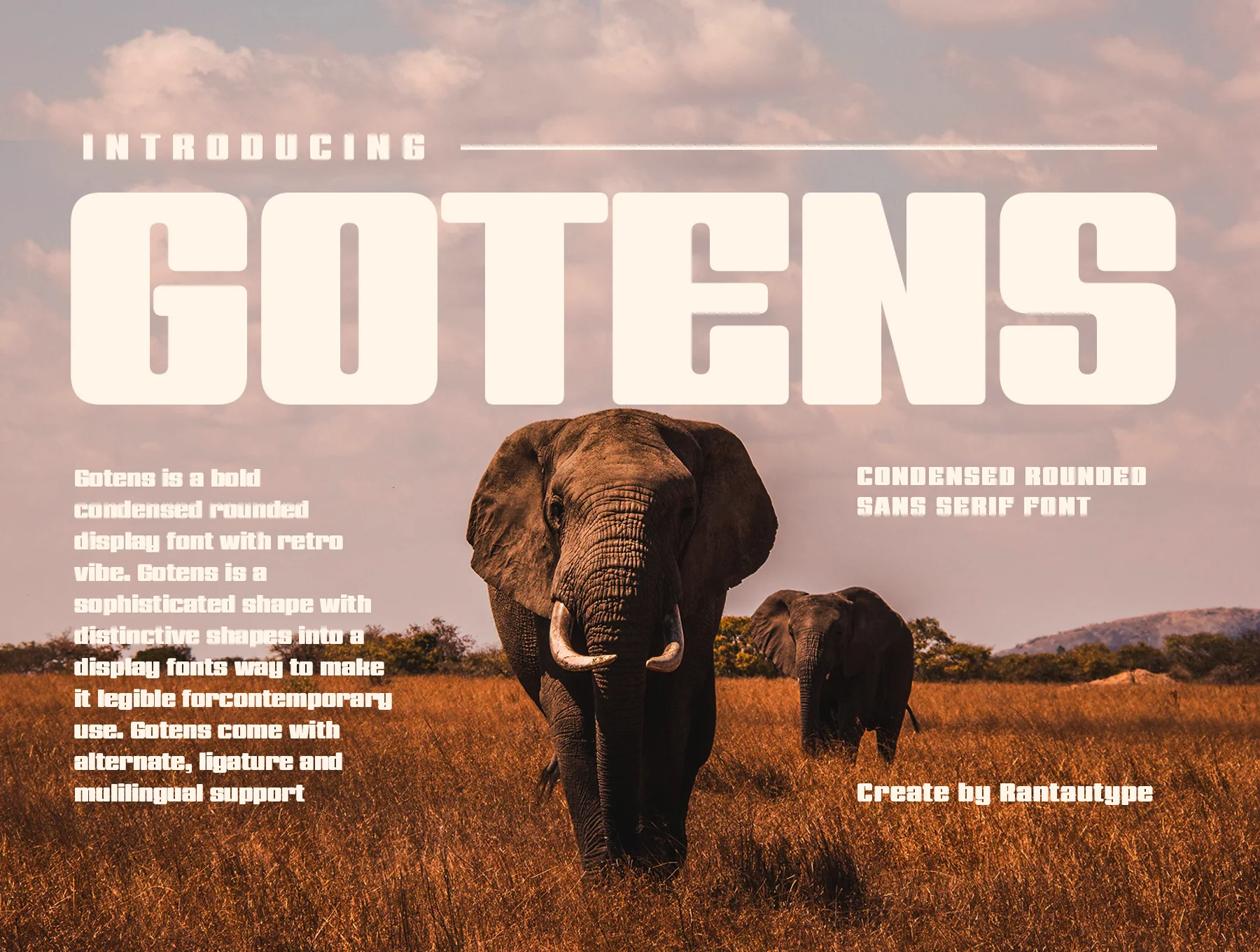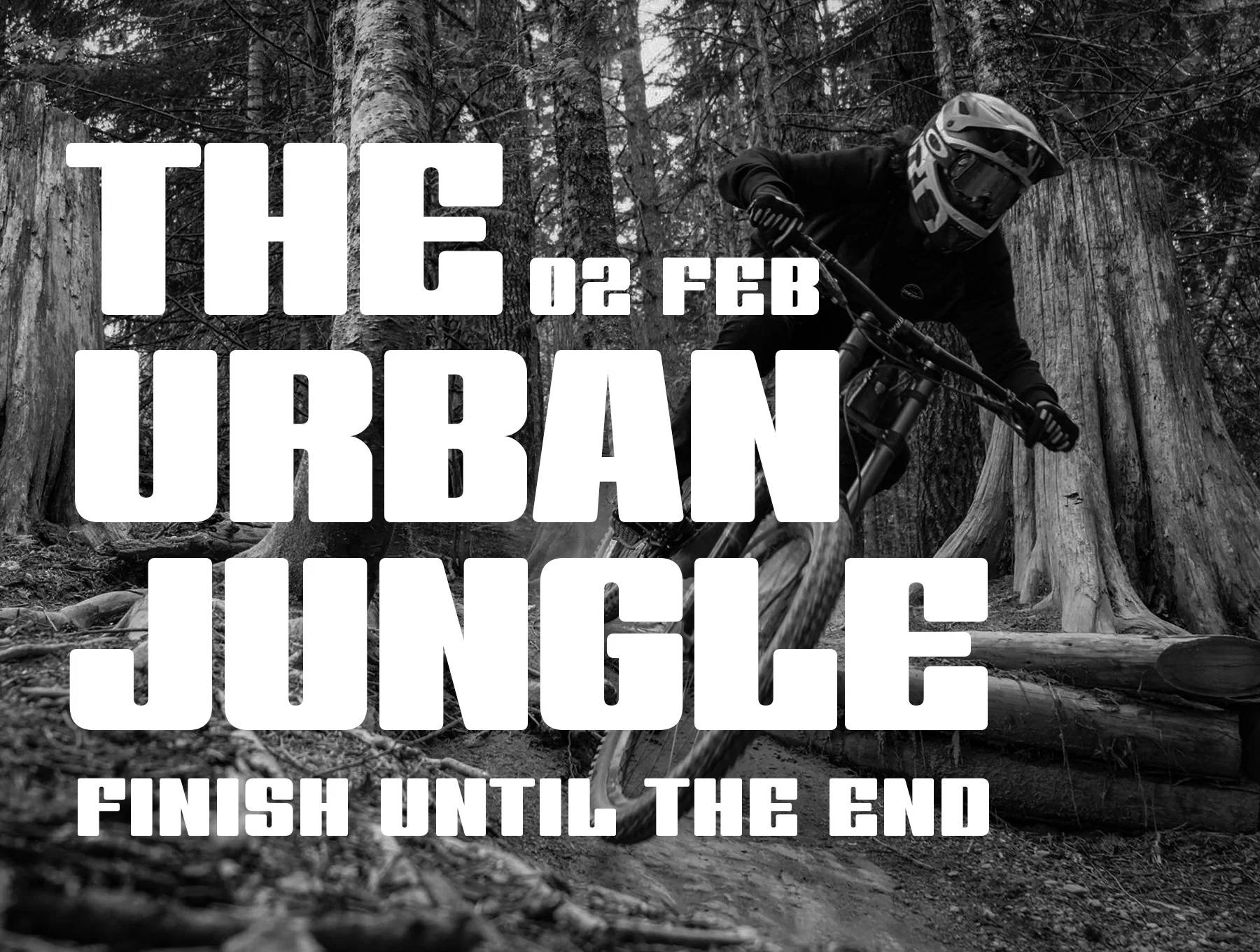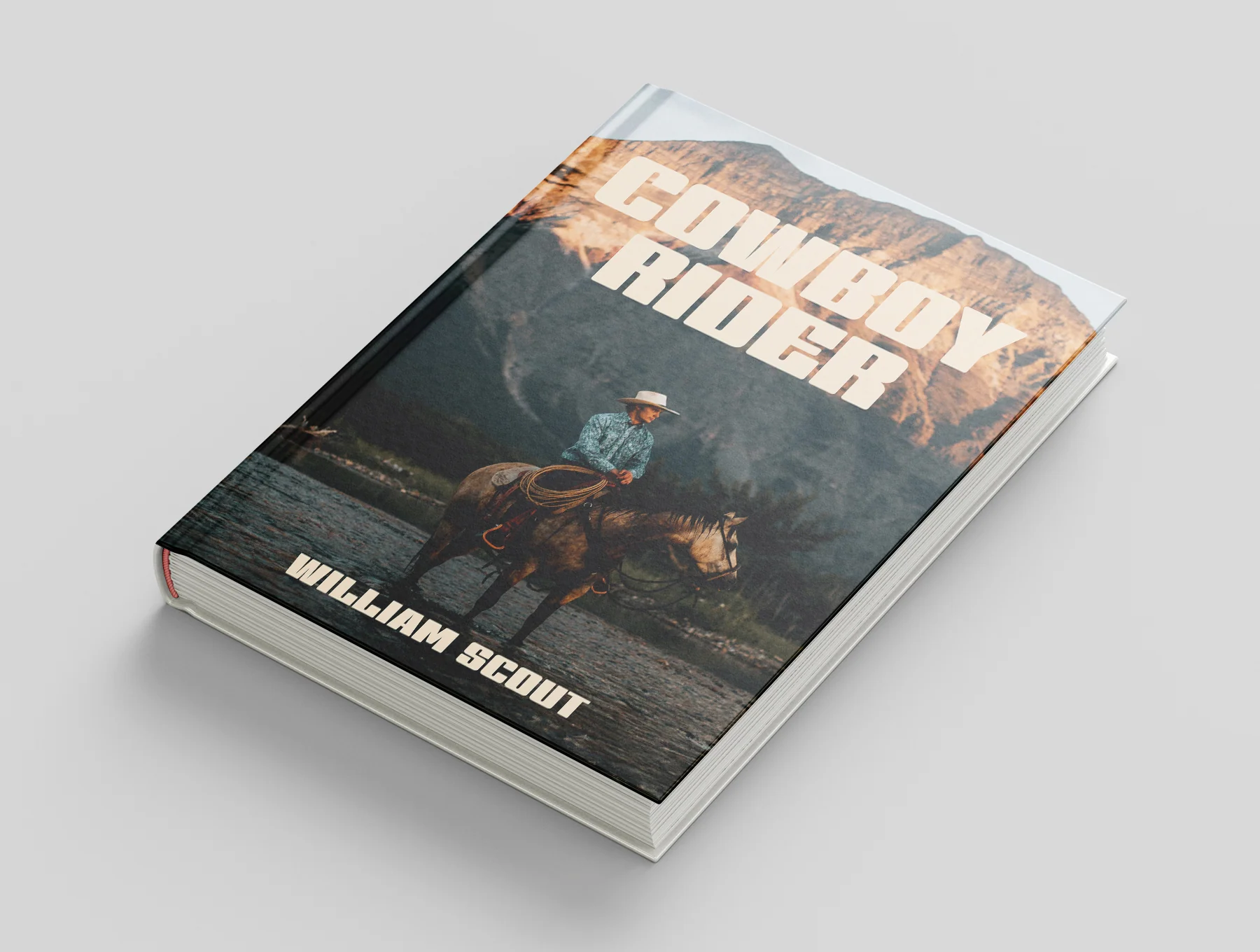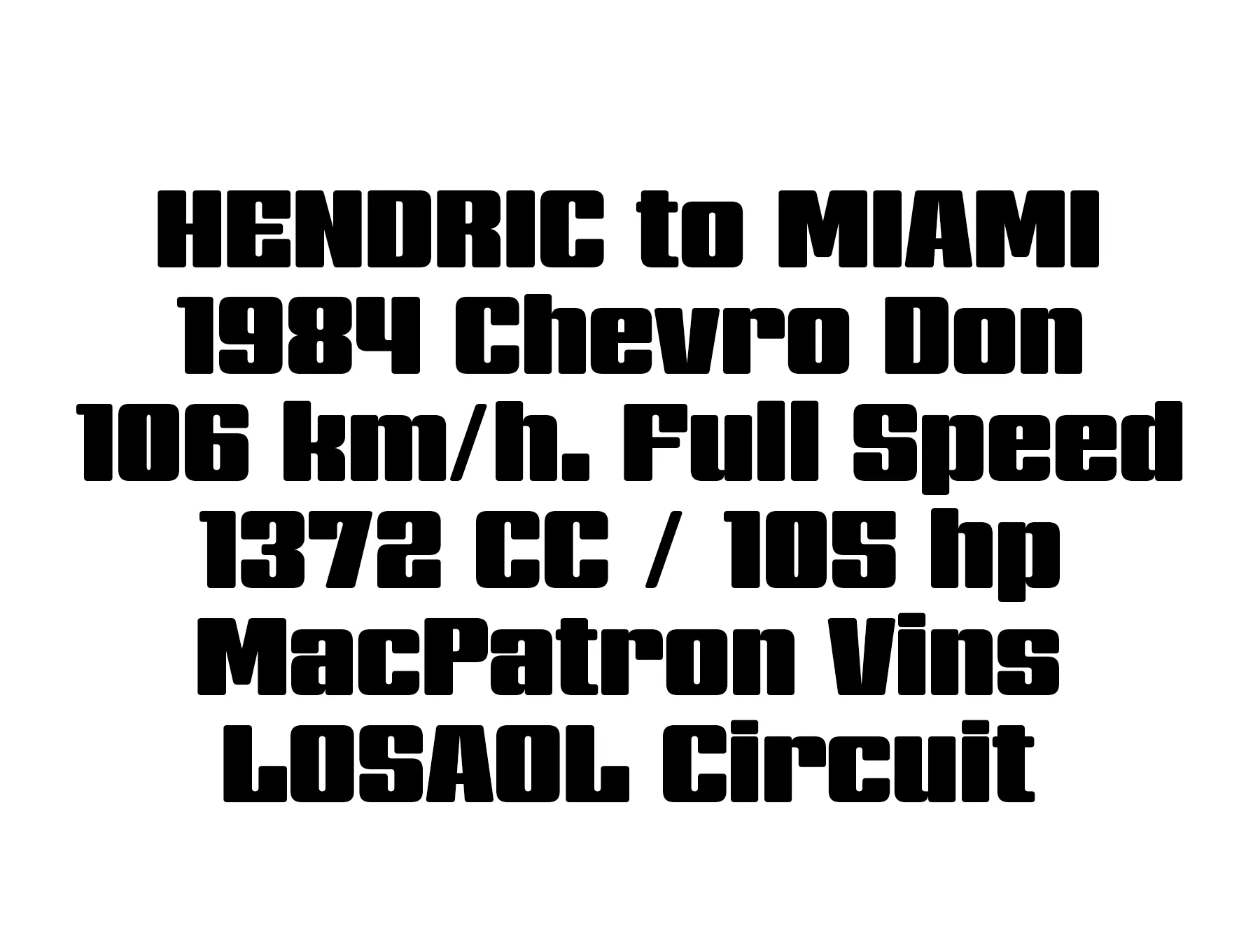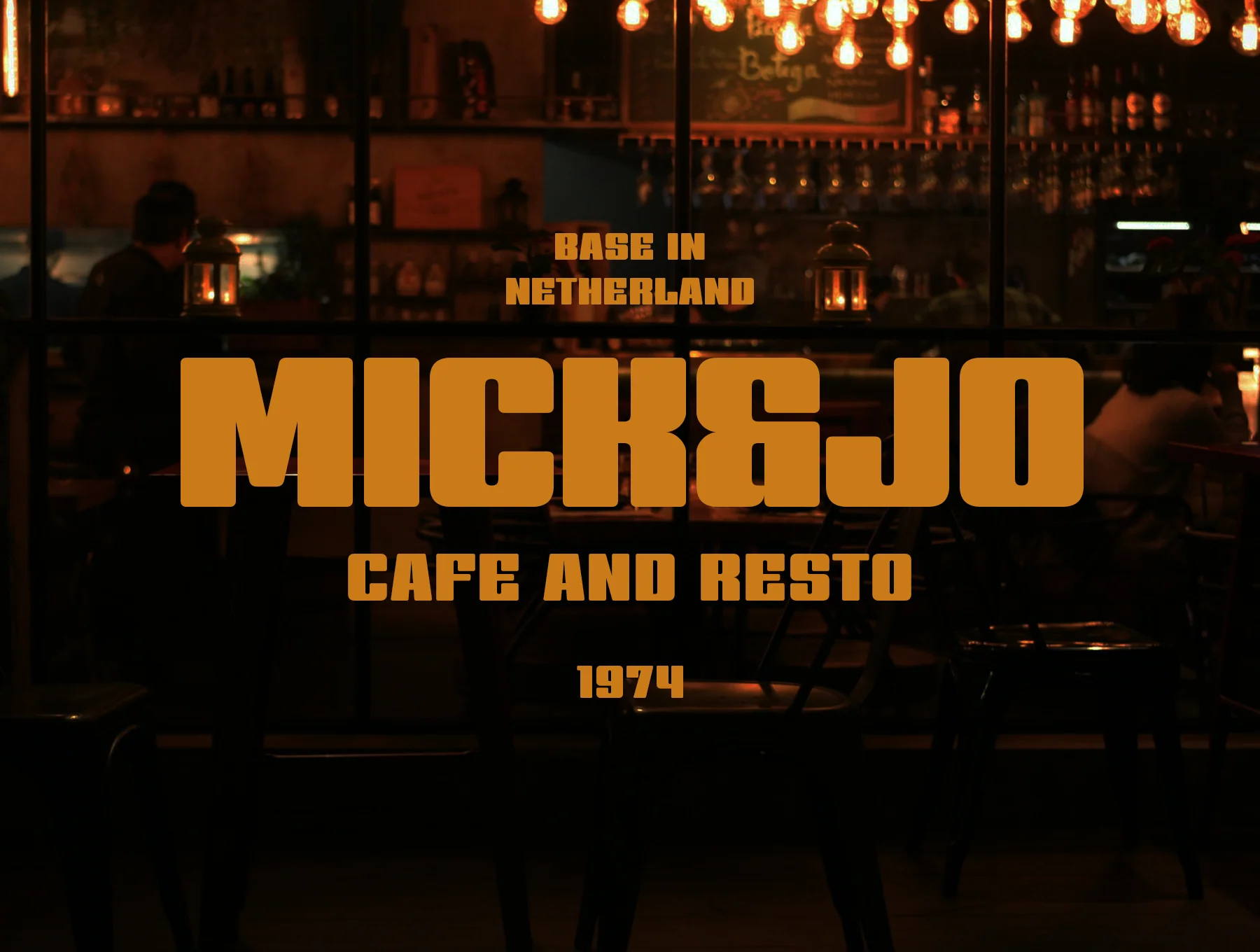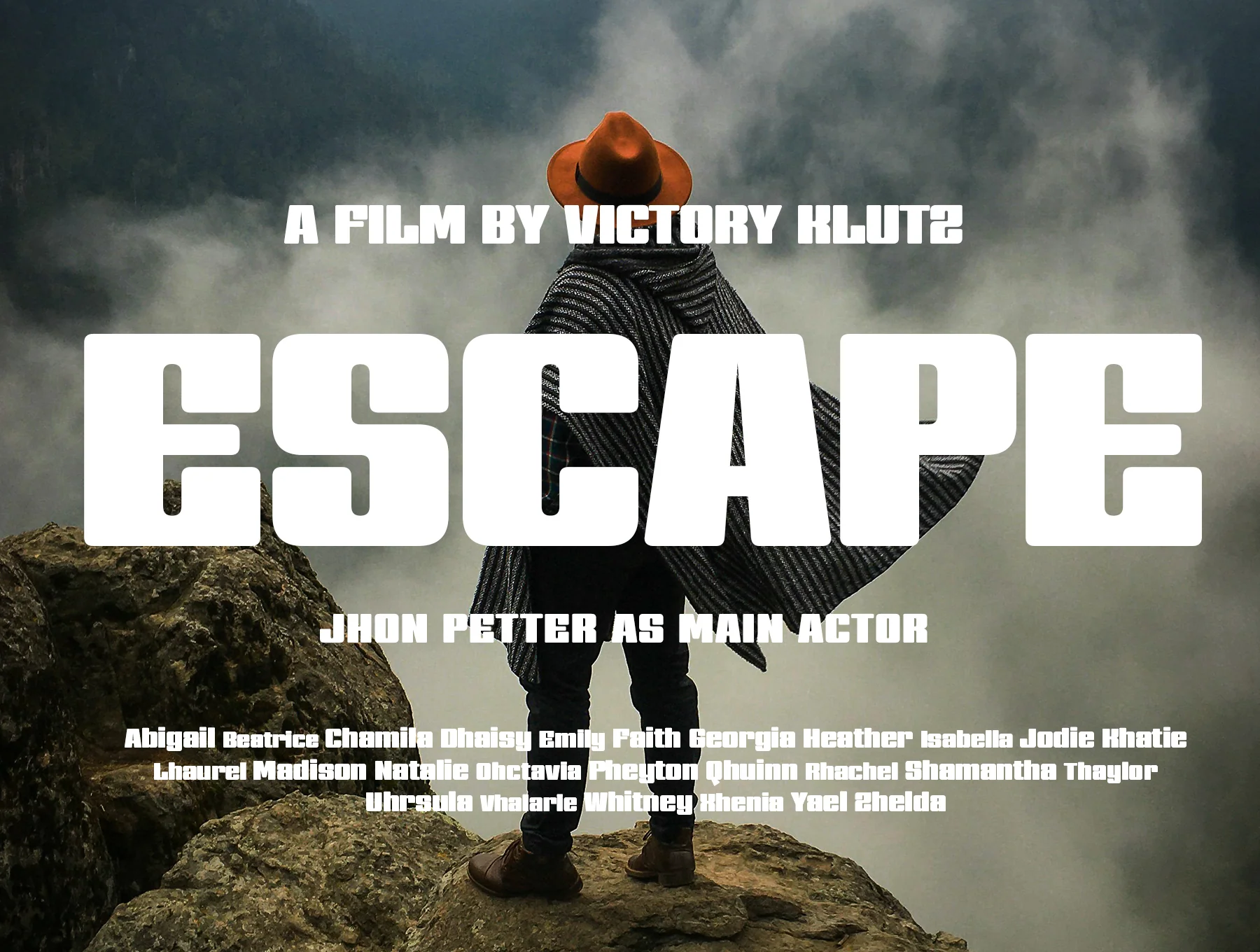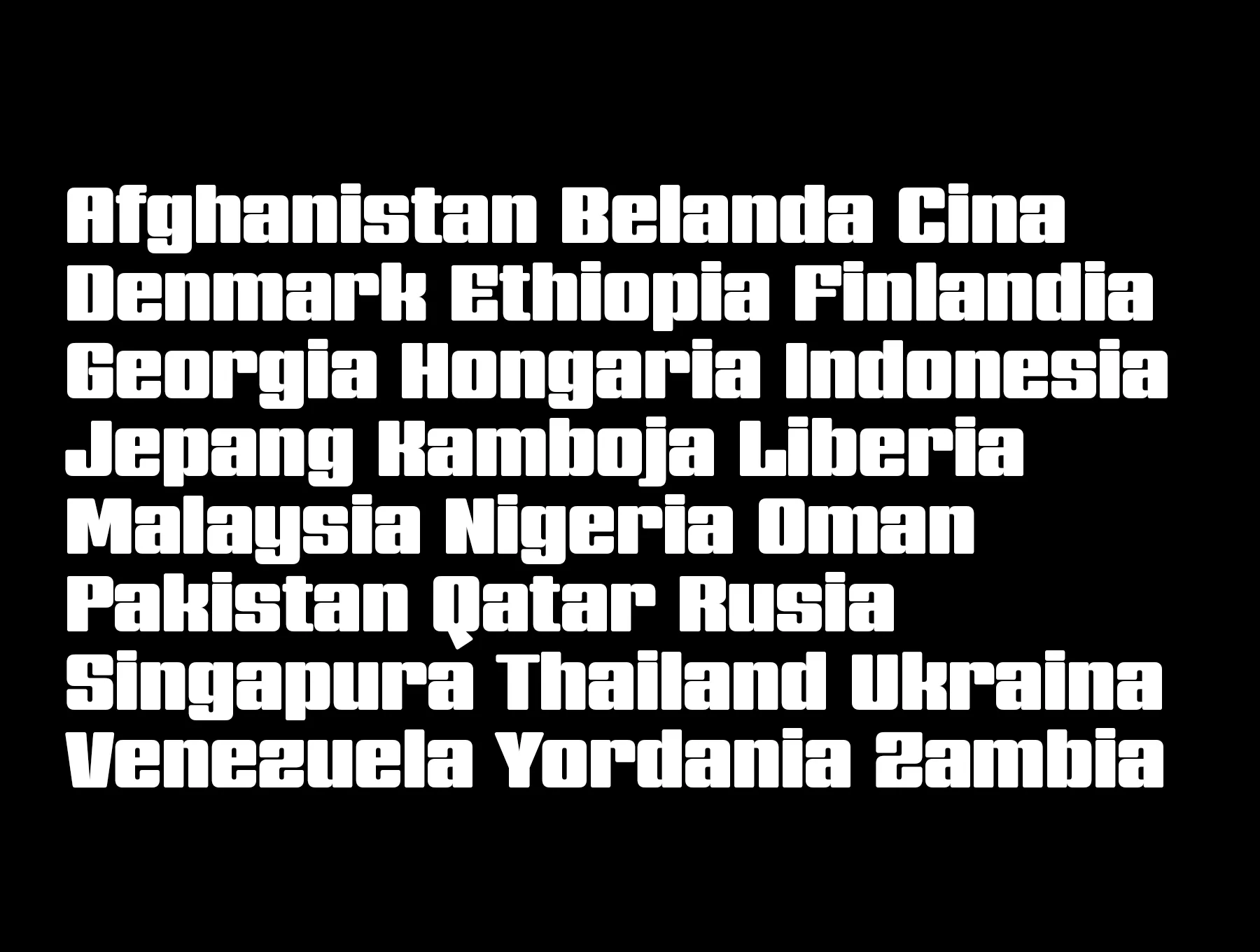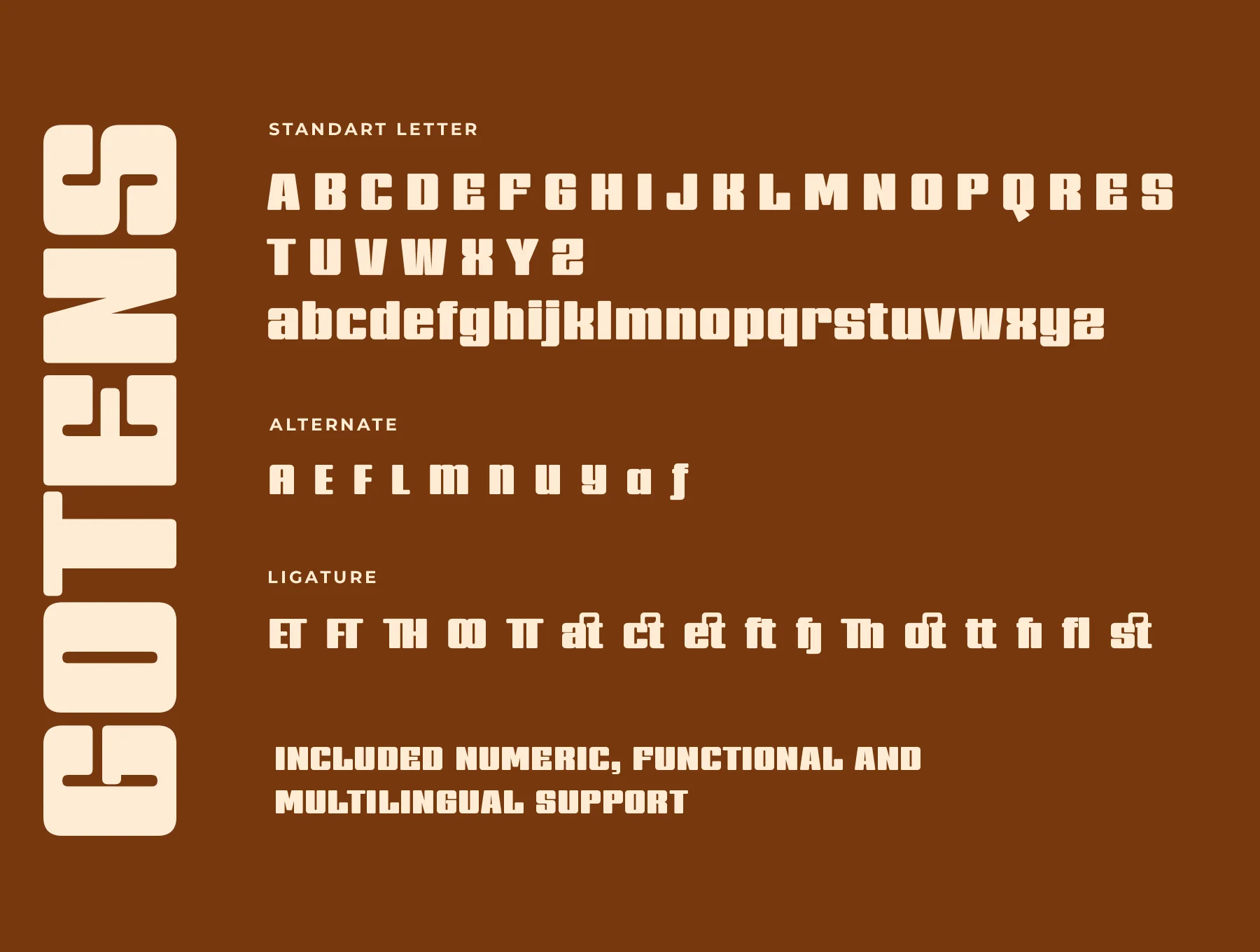
Gotens Bold Condensed Display Font
Bold narrow rounded display typeface
Regular and italic font styles
Standard uppercase and lowercase letters
Numerals and functional characters
Alternates and ligatures
Introducing Gotens by rantautype, a bold condensed rounded display font with a retro feel and modern readability. Ideal for logos, titles, covers, branding, magazines, and stylish lifestyle projects. Includes Regular and Italic styles in OTF, TTF, WOFF, and WOFF2, with A-Z/a-z, numbers, symbols, alternates, ligatures, OpenType features, and multilingual support.